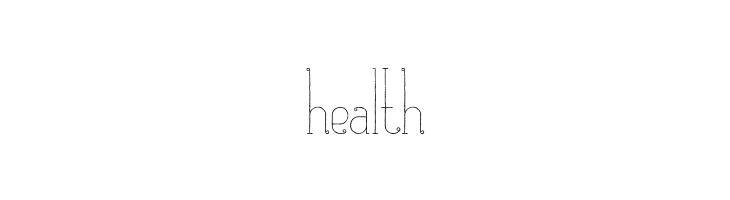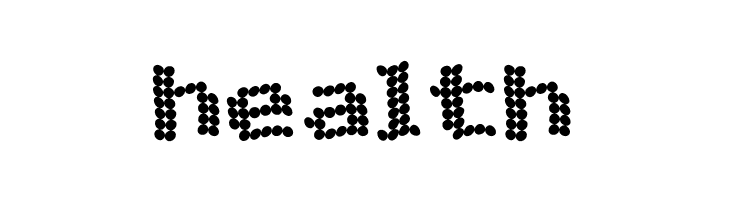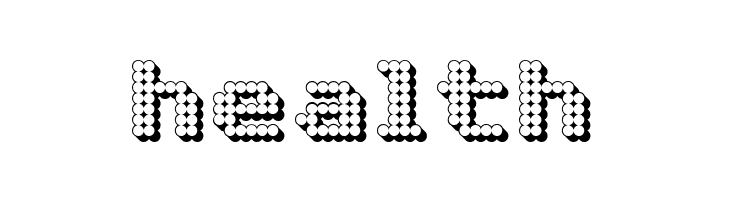
( David Kerkhoff - www.hanodedfonts.com )
A bold, brush-like handwritten font with an italicized, left-leaning style.
( Fonts by www.typedepot.com )
A thin, elegant font with elongated strokes and a minimalist aesthetic.
( Fonts by www.typedepot.com )
A delicate, sketch-like font with thin, hand-drawn lines and a whimsical aesthetic.
( Font by Jayvee D. Enaguas - grandchaos9000.deviantart.com )
A 3D dot matrix font with a futuristic and digital aesthetic.
( Font by Jayvee D. Enaguas - grandchaos9000.deviantart.com )
A dot-matrix style font with a modern, digital appearance.
( Font by Jayvee D. Enaguas - grandchaos9000.deviantart.com )
A modern, dot-based font with a playful, digital aesthetic.
( Font by Jayvee D. Enaguas - grandchaos9000.deviantart.com )
A modern, italic sans-serif font with a sleek and dynamic style.
( Font by Jayvee D. Enaguas - grandchaos9000.deviantart.com )
A modern sans-serif font with a bold, geometric design.